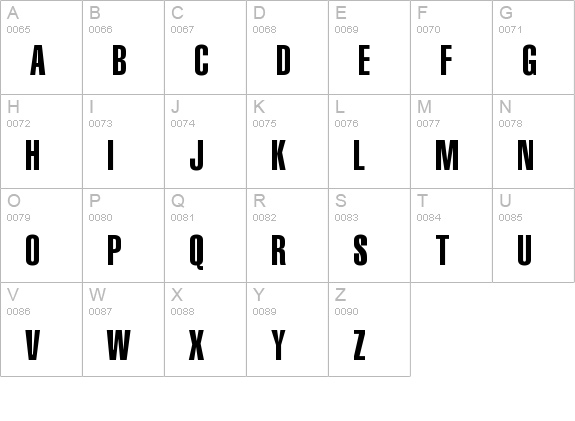
Context Extra Condensed SSi Extra Condensed Font Details
Context Extra Condensed SSi Extra Condensed is a distinctive, condensed-width variant in the Context typeface family \xE2\x80\x94 well suited to design and typography projects.
The Context Extra Condensed SSi Extra Condensed font is a sleek and modern typeface that exudes sophistication and elegance. With its condensed design, this font is perfect for creating a sleek and professional look in your design projects. The tall and narrow letterforms make it ideal for headlines, titles, and other display purposes. What makes this font even more appealing is that it is available for free download at FontsMarket.com. This means you can easily add this stylish typeface to your font collection without any cost. Whether you're working on a branding project, advertising campaign, or any other design project, the Context Extra Condensed SSi Extra Condensed font will help you achieve a polished and contemporary look. Download it today and elevate your designs with this sophisticated typeface.